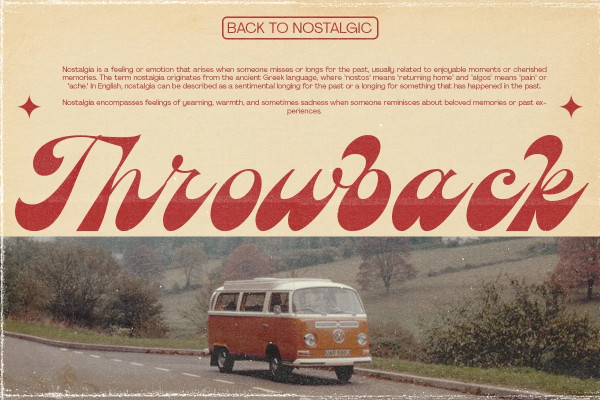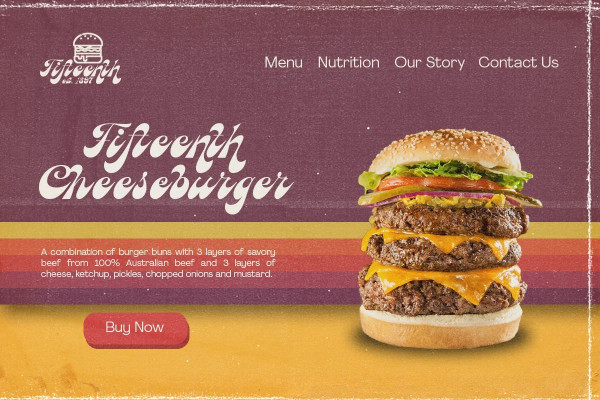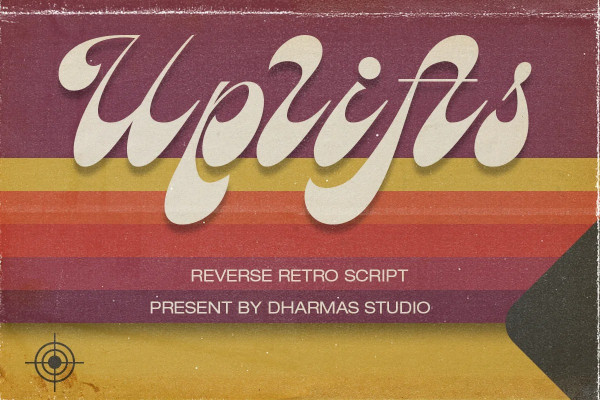
Uplifts Font
Uplifts Font! With its captivating reverse retro script style, Uplifst brings a sense of groovy nostalgia and smooth elegance. Its italic letters exude a charm that will take your designs to the next level.
Uplifts Font – Incredibly versatile, making it a perfect fit for various projects. Whether you’re working on a cover magazine, brochure, logo, headline, or quotes, this font adds a touch of personality and flair. It shines as a stand-alone display font and effortlessly enhances short paragraphs or content.
Each font in the Uplifts family has its own unique character, making your designs come alive with dynamic and authoritative vibes. Get ready to make a lasting impression and evoke that retro charm that everyone loves.